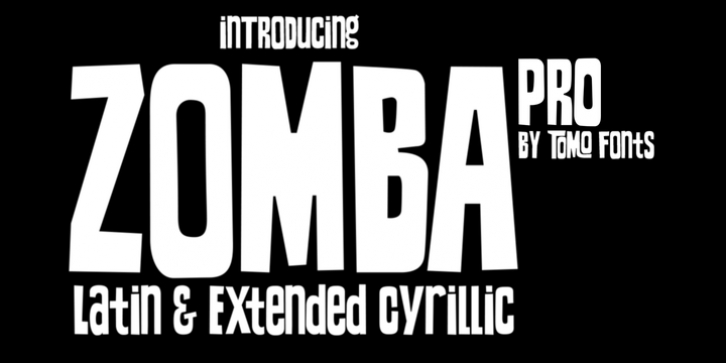
ZOMBA! It’s a retro-horror typeface that speak for itself. Ideal for big and strong messages. Kids gonna love it. Carefully hand crafted, includes almost all latin languages and cyrillic!